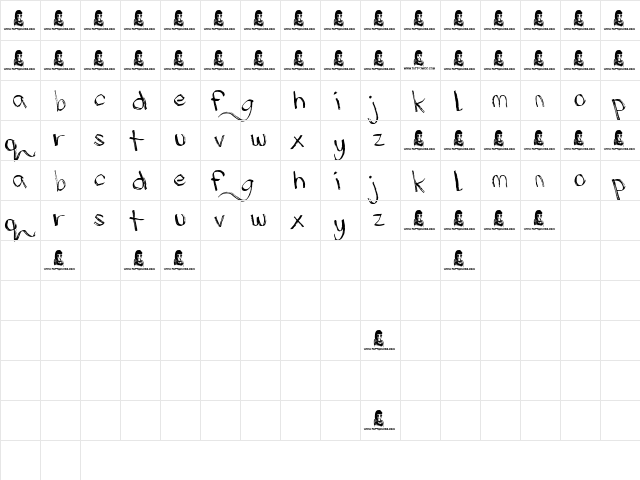
Monday Blues Regular Font Preview
Monday Blues Regular
Design Context for Monday Blues Typeface
Monday Blues is a composed and adaptable typeface that performs quietly and consistently across a wide range of design contexts.